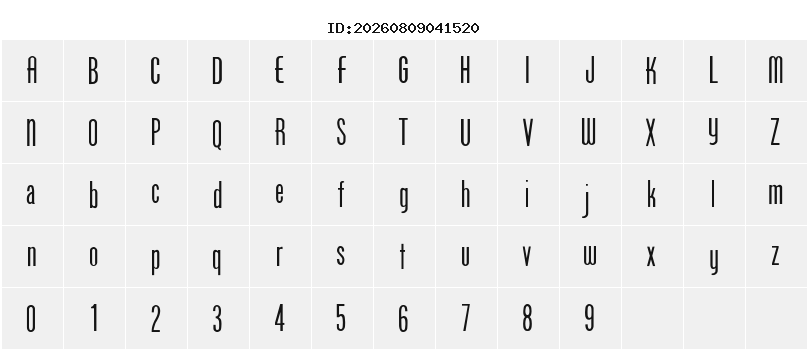
Phoenix Preview
• Font Name: Phoenix
• Full Font Name: Phoenix
• PostScript Name: Phoenix
About Phoenix.ttf
Phoenix.ttf is a modern, elegant sans-serif font designed for ultimate readability and visual harmony. Perfect for branding, headlines, web design, and print materials.